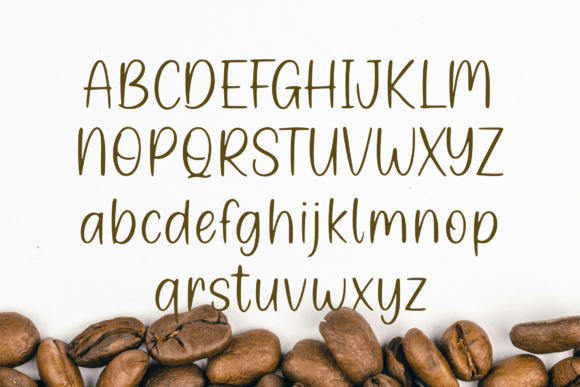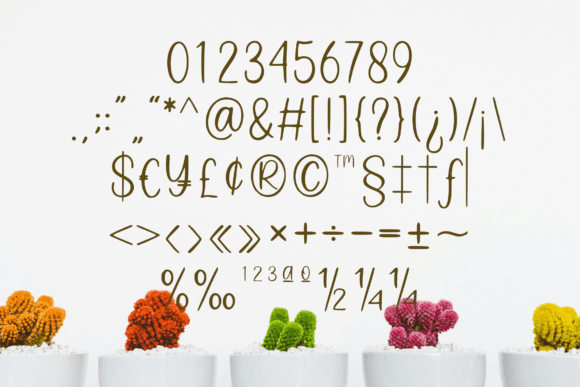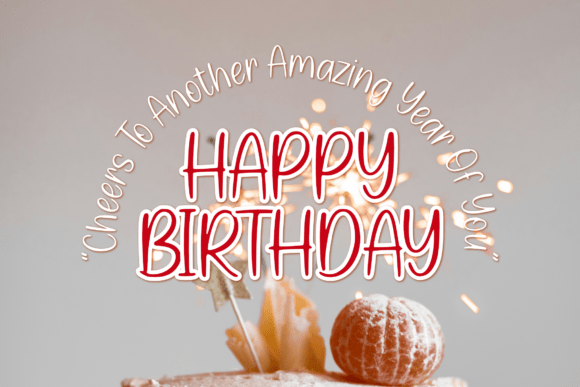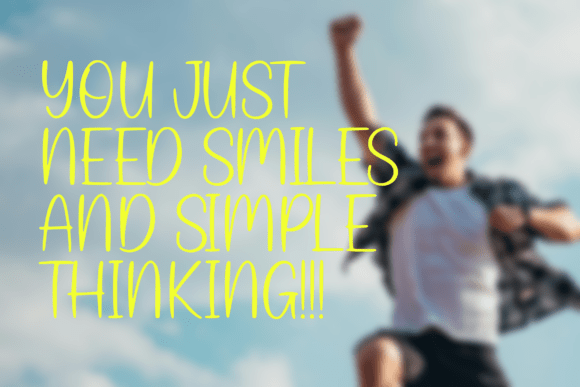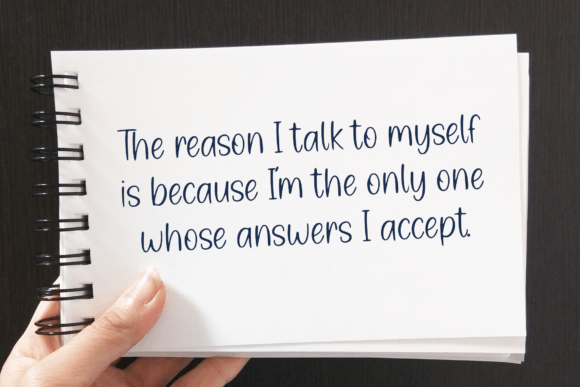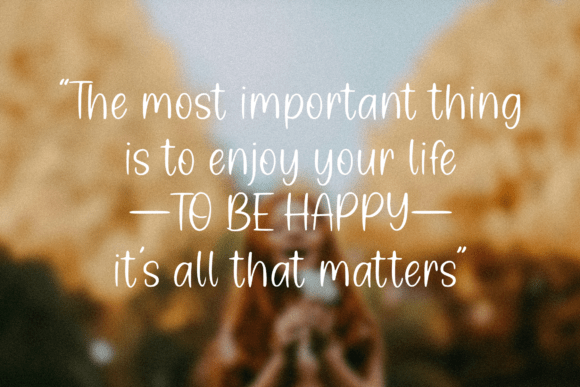
Gundul Roses Font: The Epitome of Elegant Simplicity
In the vast universe of typography, few fonts manage to strike a balance between sophistication and simplicity. However, Gundul Roses font stands out as a remarkable exception, offering an inviting blend of refinement and casual charm. This striking handwriting font is reminiscent of the comforting allure of genuine penmanship, making it an excellent choice for designers and crafters looking to infuse their creations with a personal touch.
The Unique Charm of Gundul Roses
Crafted with a harmonious rhythm and a touch of natural fluidity, Gundul Roses font brings an intimate yet refined flair to any visual assembly. Its elegant strokes and carefully balanced letters evoke a sense of warmth and authenticity, making it perfect for a wide range of applications. Whether you’re looking to add a personal spin to jotted-down notes, product labels, captivating headlines, or distinctive logos, Gundul Roses is an excellent choice.
Gundul Roses font boasts several design characteristics that set it apart from other handwriting fonts. Its casual, flowing script is infused with a sense of natural movement, giving it a relaxed yet sophisticated feel. The font’s harmonious rhythm and balanced letters ensure that it remains legible and easy to read, even at smaller sizes. This makes it an excellent choice for body text, as well as for headlines and titles.
Versatility and Applications
One of the standout features of Gundul Roses font is its versatility. Its unique blend of sophistication and simplicity makes it suitable for a wide range of applications, from:
- Handwritten notes and letters: Add a personal touch to your correspondence with Gundul Roses’ warm and inviting script.
- Product labels and packaging: Stand out on store shelves with elegant and eye-catching labels that showcase your brand’s personality.
- Headlines and titles: Add a touch of sophistication to your titles and headlines with Gundul Roses’ refined and elegant script.
- Logos and branding: Create a lasting impression with a distinctive logo that incorporates Gundul Roses’ unique charm.
Why Choose Gundul Roses?
So, why choose Gundul Roses font for your next design project? Here are just a few compelling reasons:
- Elegant simplicity: Gundul Roses offers a unique blend of sophistication and simplicity that’s hard to find in other fonts.
- Authentic feel: Its natural fluidity and harmonious rhythm give Gundul Roses an authentic, handwritten feel that’s perfect for designs that require a personal touch.
- Versatility: Gundul Roses is suitable for a wide range of applications, from body text to headlines and titles.
- Easy to read: Despite its elegant script, Gundul Roses remains legible and easy to read, even at smaller sizes.
| Font Name | Gundul Roses Font |
| Author | Sign Studios |
In conclusion, Gundul Roses font is a striking and elegant handwriting font that offers a unique blend of sophistication and simplicity. Its natural fluidity, harmonious rhythm, and balanced letters make it perfect for designers and crafters looking to add a personal touch to their creations. Whether you’re working on a logo, product label, or simply want to add a touch of elegance to your handwritten notes, Gundul Roses is an excellent choice. So why not give it a try and experience the charm of Gundul Roses for yourself?
- Experiment with different sizes: Gundul Roses looks great at a range of sizes, from small body text to large headlines.
- Pair it with other fonts: Try pairing Gundul Roses with other fonts to create a unique and visually appealing design.
- Play with colors and textures: Gundul Roses looks great in a range of colors and textures, so don’t be afraid to experiment and find the perfect combination for your design.